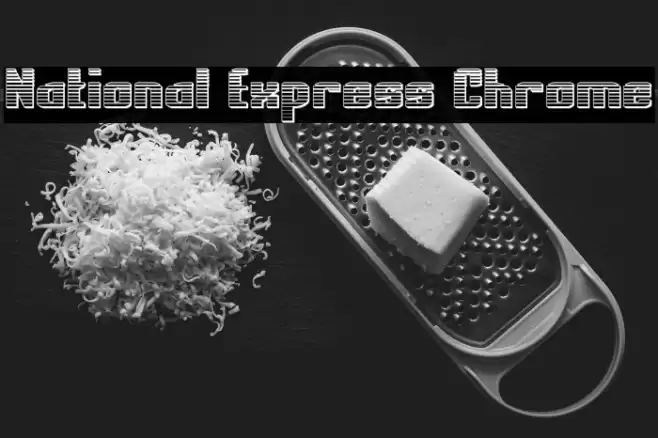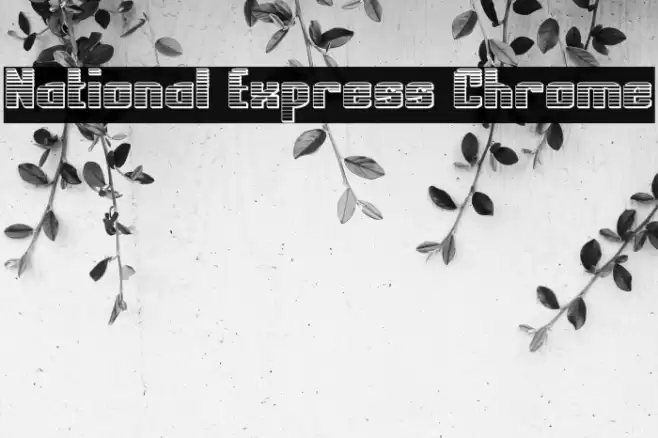
National Express Chrome Font
National Express Chrome Description
This font features a bold, geometric design with a distinct striped pattern running horizontally across each character. The uppercase and lowercase letters maintain a uniform width, creating a cohesive and structured appearance. The numerals and special characters follow the same design principles, ensuring consistency throughout. The font's unique style is reminiscent of retro and futuristic aesthetics, making it stand out in any design. Its bold presence and intricate detailing make it suitable for eye-catching displays.
A bold, geometric font with a distinctive horizontal striped pattern from Uncategorized fonts.
- Proposed Projects: Ideal for retro-themed posters, futuristic branding, and eye-catching headlines.
- Overall Style: Futuristic, Retro